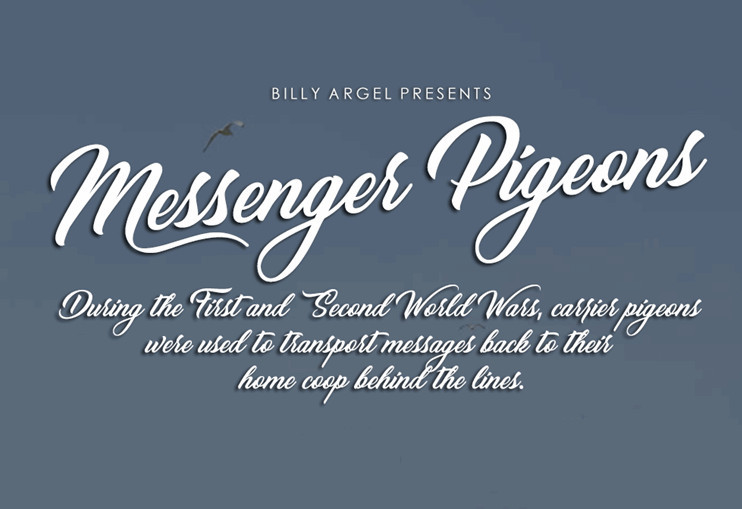
Messenger Pigeons Font
The full version of this font has ligatures for better reading, also opentype features – stylistics alternates.
some ligatures: tt /ff /jj /rr /ss /fg /fig /fz /zz /zj /fj/ fy